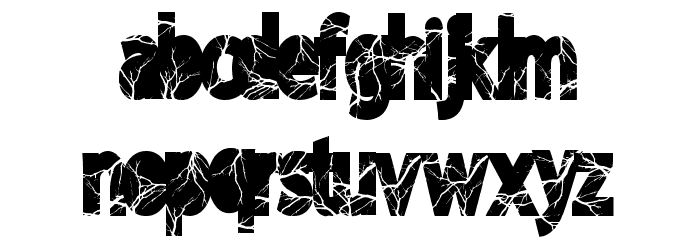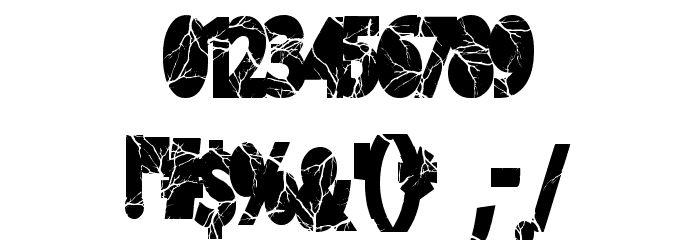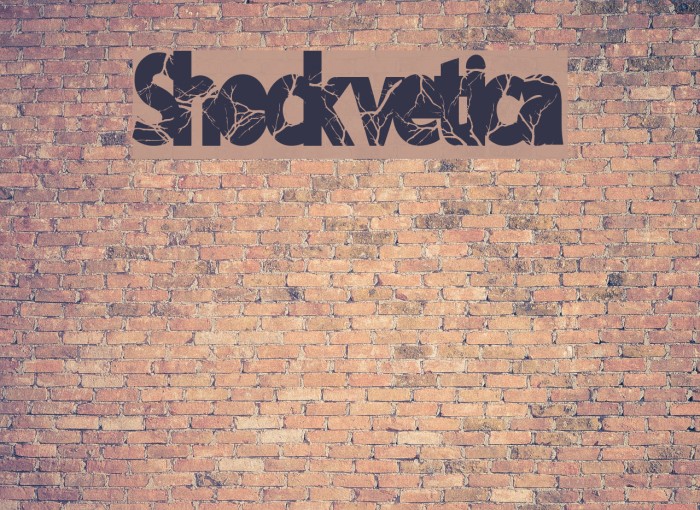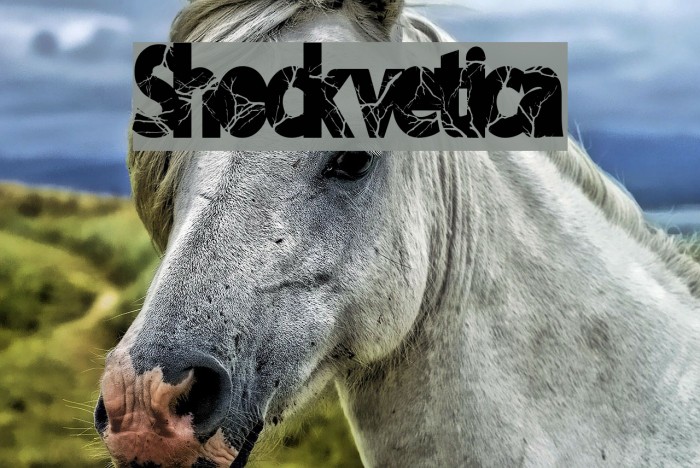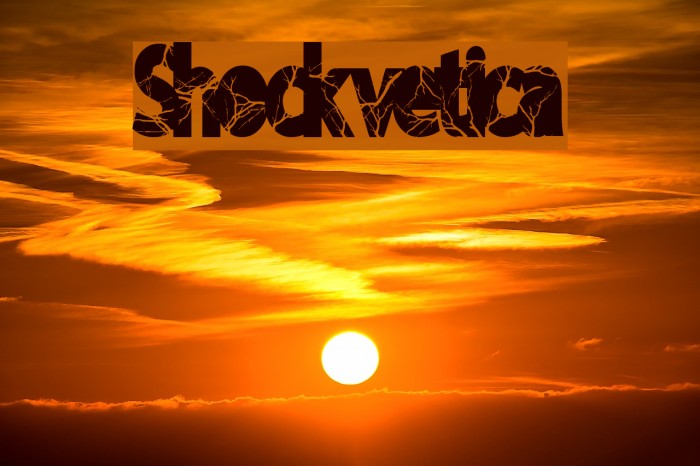
Shockvetica Font
This font features a bold and striking design with a cracked, distressed texture that runs throughout each character. The uppercase and lowercase letters maintain a consistent weight, creating a cohesive look despite the chaotic pattern. The numerals and special characters share the same rugged aesthetic, making the font suitable for projects that require a dramatic and edgy appearance. The unique texture adds a sense of movement and energy, making it stand out in any design.
A bold, textured font with a cracked, distressed appearance.
- Proposed Projects: Ideal for album covers, posters, branding for edgy products, or any design needing a bold statement.
- Overall Style: Modern, Decorative